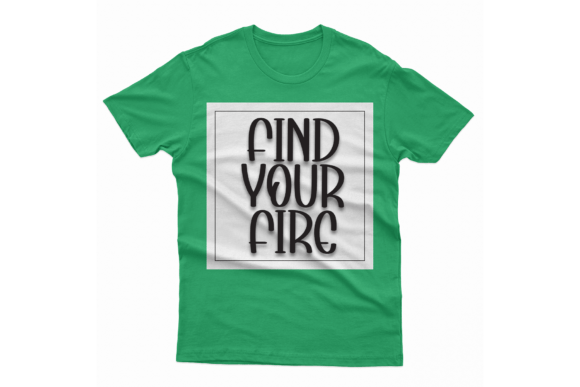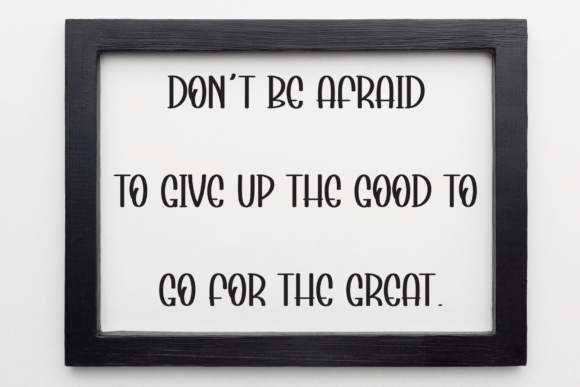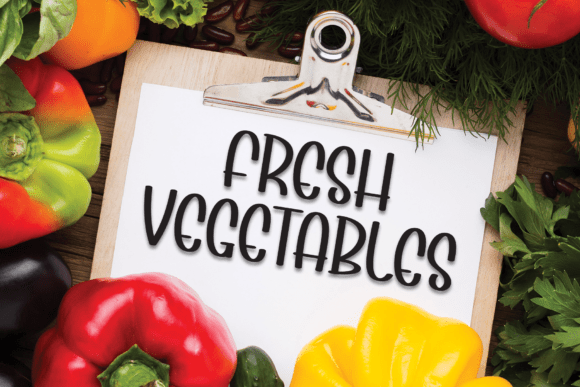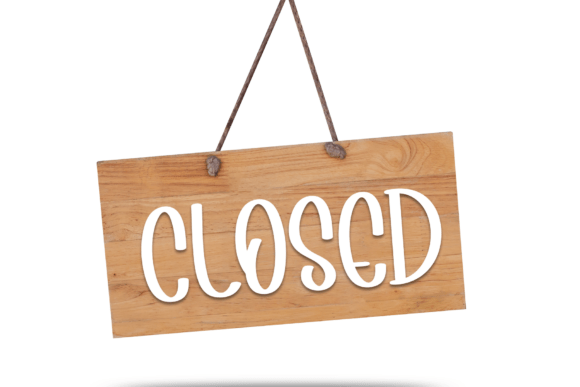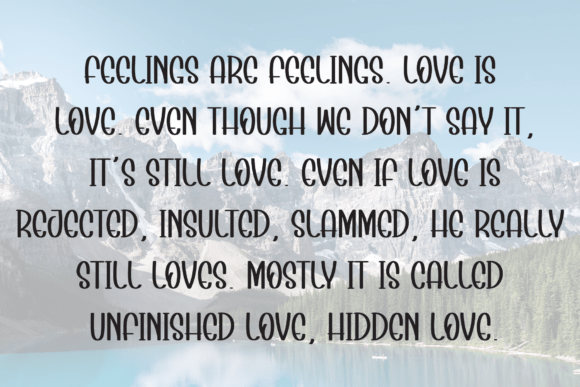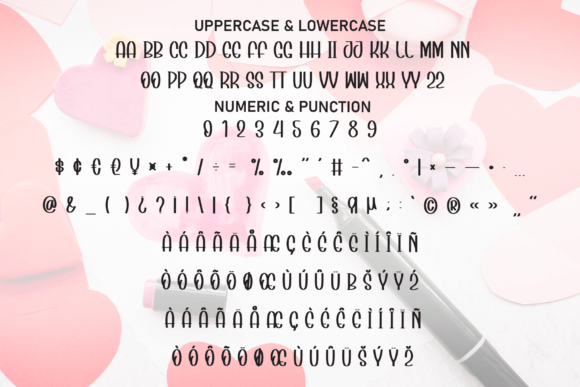
Creative Valentine Font: Add a Touch of Whimsy to Your Designs
Are you looking for a font that exudes warmth, playfulness, and romance? Look no further than the Creative Valentine Font! This delightful handwritten display font is perfect for designers and crafters who want to add a personal touch to their creations. Infused with delightful charisma and playfulness, this font is sure to enchant your audience and make your designs stand out.
The Perfect Font for Wedding Invitations and Cards
Wedding invitations, Valentine’s Day cards, and other romantic designs require a font that conveys love, care, and attention to detail. The Creative Valentine Font is specifically designed to meet these needs. Its whimsical and playful style adds a touch of sweetness to any design, making it perfect for crafting heartwarming wedding invitations, adorable cards, and other romantic creations.
What Makes This Font So Special?
The Creative Valentine Font is anything but ordinary. Its unique and enchanting style is sure to imprint endearment and uniqueness on each creation, making every word detail memorable. Here are some of the key features that make this font so special:
- Handwritten style: The font has a beautiful, handwritten style that gives it a personal and intimate feel.
- Playful and whimsical: The font is infused with delightful charisma and playfulness, making it perfect for designs that require a touch of fun and romance.
- Perfect for romantic designs: The font is specifically designed for romantic designs, such as wedding invitations, Valentine’s Day cards, and other love-themed creations.
- Unique and memorable: The font’s unique style is sure to make your designs stand out and leave a lasting impression on your audience.
How to Use the Creative Valentine Font in Your Designs
The Creative Valentine Font is easy to use and can be incorporated into a variety of designs. Here are some ideas to get you started:
- Wedding invitations: Use the font to create beautiful and unique wedding invitations that set the tone for the special day.
- Valentine’s Day cards: Create adorable Valentine’s Day cards that are sure to delight your loved ones.
- Romantic posters: Use the font to create romantic posters that celebrate love and relationships.
- Greeting cards: The font is perfect for creating greeting cards for birthdays, anniversaries, and other special occasions.
Tips for Getting the Most Out of the Creative Valentine Font
Here are some tips for getting the most out of the Creative Valentine Font:
- Experiment with different colors: The font looks great in a variety of colors, so don’t be afraid to experiment and find the perfect hue for your design.
- Pair with other fonts: The Creative Valentine Font pairs well with other fonts, so try combining it with a sans-serif font for a unique look.
- Use it sparingly: The font is perfect for headlines and titles, so use it sparingly to add a touch of whimsy to your design.